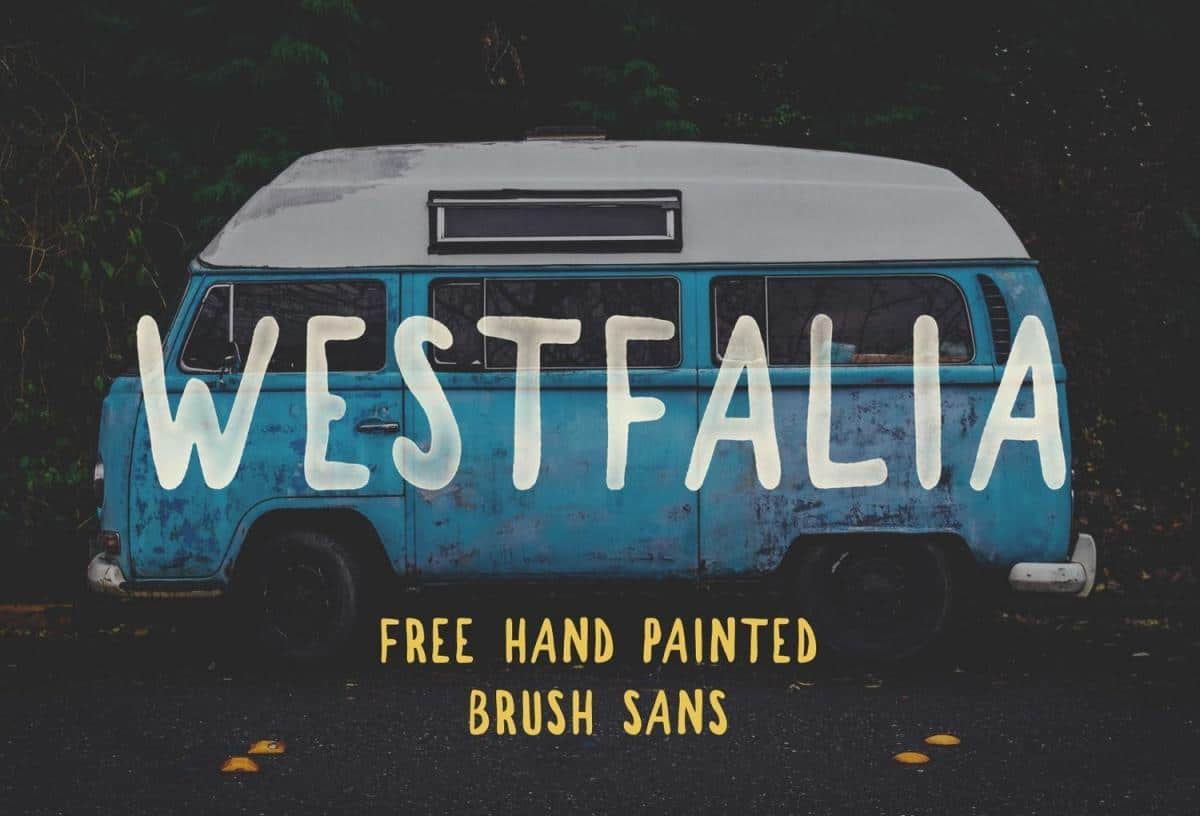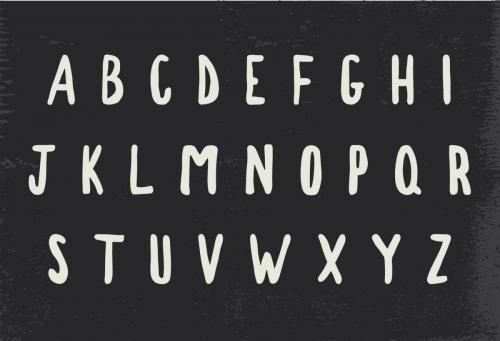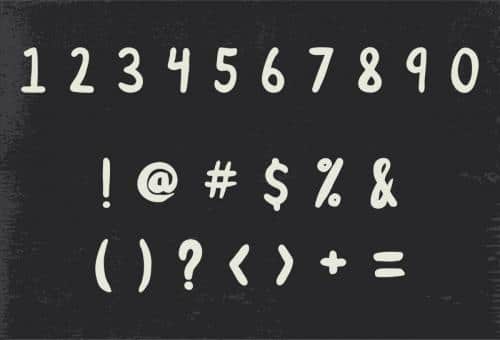
Westfalia is a hand painted brush sans from Pixel Surplus. This font provides an authentic hand drawn feel with its messy edges and varied line thickness. Great for any design work related to the outdoors and exploration.